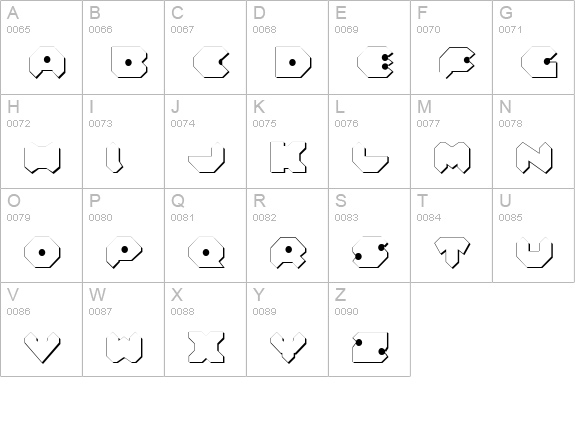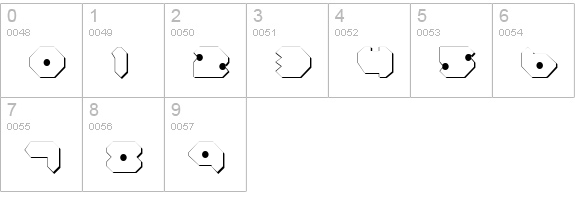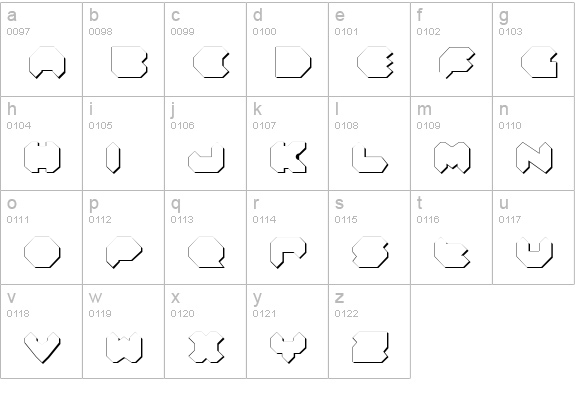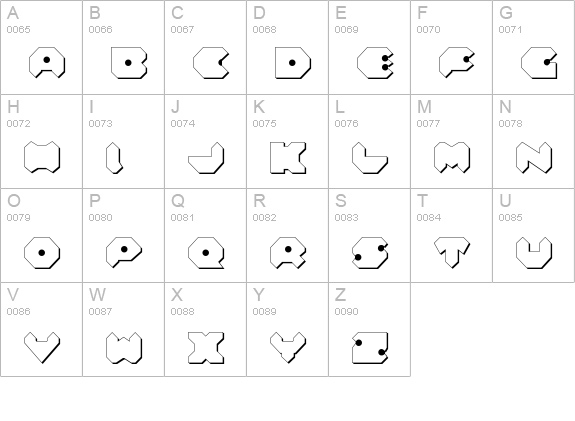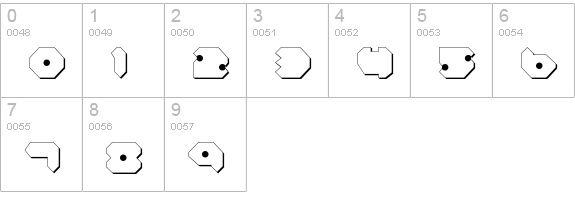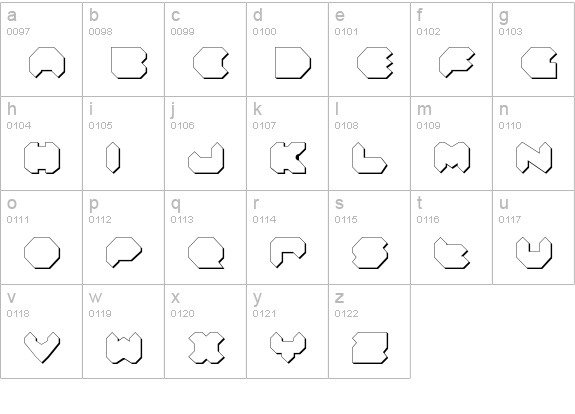
Feldercarb Shadow2 Font Details
Feldercarb Shadow2 font is a versatile and stylish typeface that exudes a sense of modernity and sophistication. With its unique shadowed design, this font is perfect for adding a touch of elegance to any project. The sleek and sharp letterforms of Feldercarb Shadow2 make it an ideal choice for headlines, titles, and branding materials. What sets Feldercarb Shadow2 font apart is not only its striking visual appeal but also its versatility. Whether you're working on a website, poster, logo, or any other design project, this font will help you make a bold statement. Its clean lines and contemporary aesthetic make it a standout choice for any creative endeavor. The best part? Feldercarb Shadow2 font is available for free download at FontsMarket.com. This means you can easily access this premium font without breaking the bank. So go ahead and elevate your designs with the sleek and stylish Feldercarb Shadow2 font today!